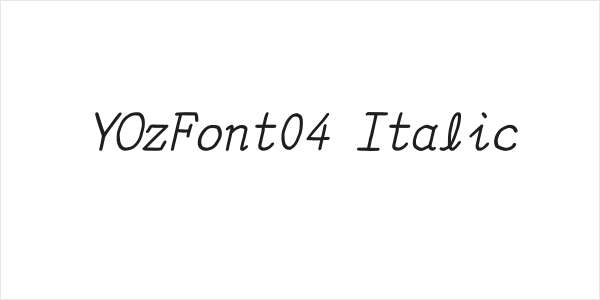
YOzFont04 Italic Font
YOzFont04 Italic Description
This font features a distinctive italic style with a handwritten appearance, characterized by its fluid and slightly slanted letterforms. The uppercase letters maintain a consistent height, while the lowercase letters exhibit a gentle cursive flow, enhancing its elegant and sophisticated look. The numerals are clear and legible, complementing the overall aesthetic. Special characters are well-integrated, maintaining the font's cohesive style. The strokes are moderately thin, providing a balanced contrast that enhances readability without sacrificing style.
Overall StyleElegant, Handwritten
Use CaseLogos, Invitations, Personal Branding
Proposed ProjectsIdeal for wedding invitations, personal branding, elegant logos, and greeting cards.